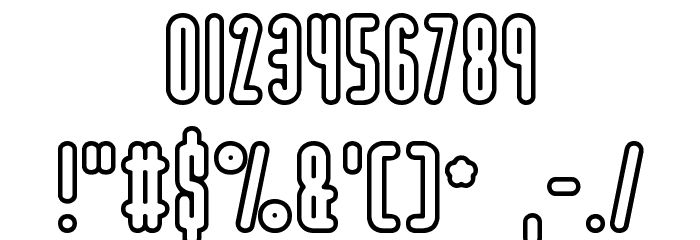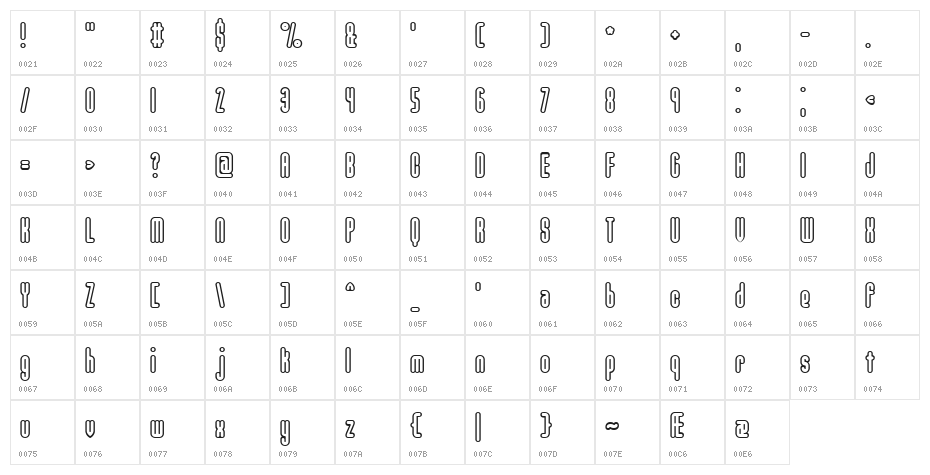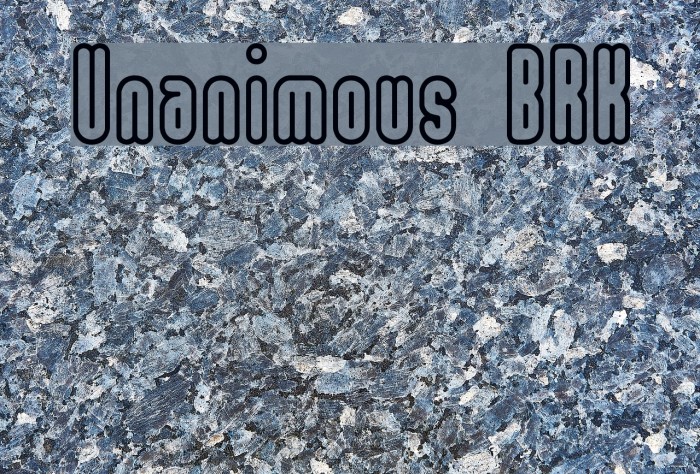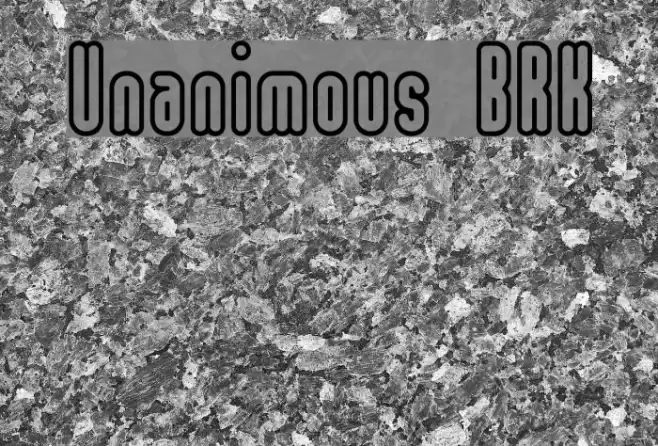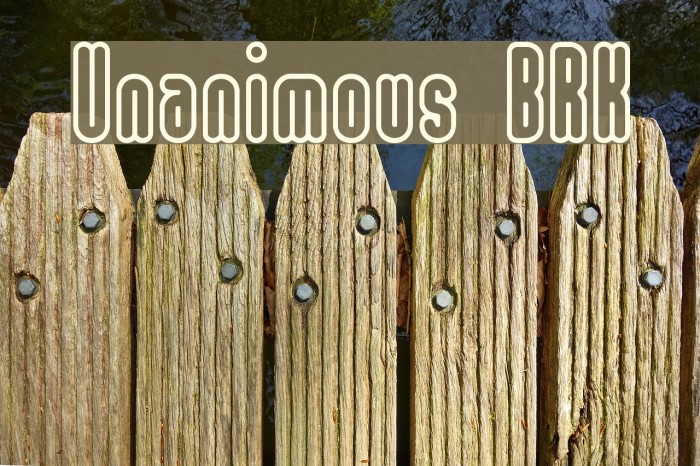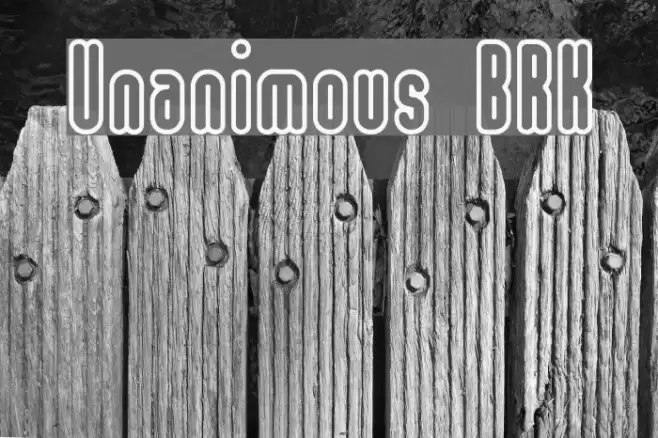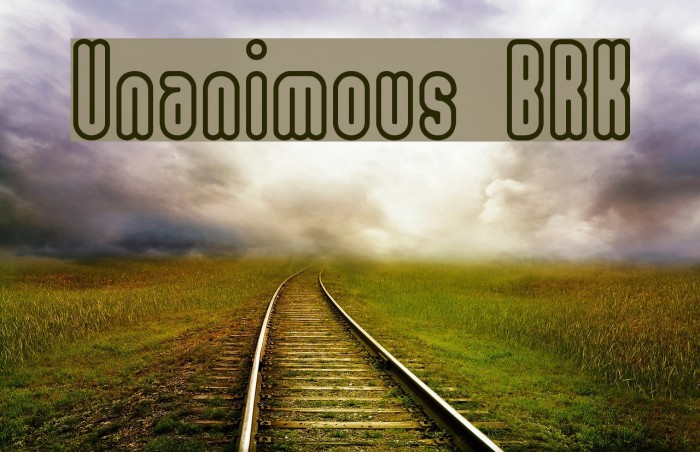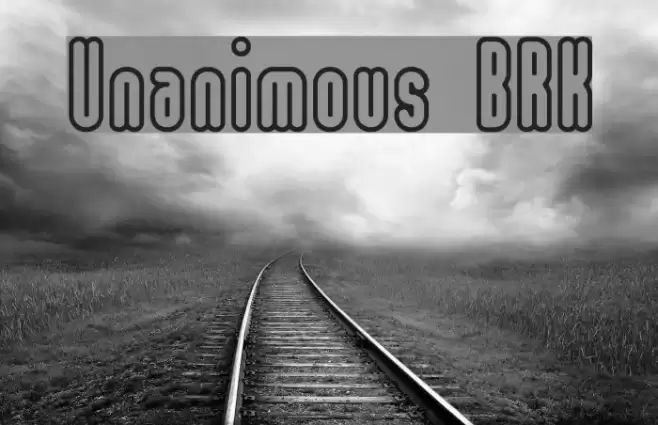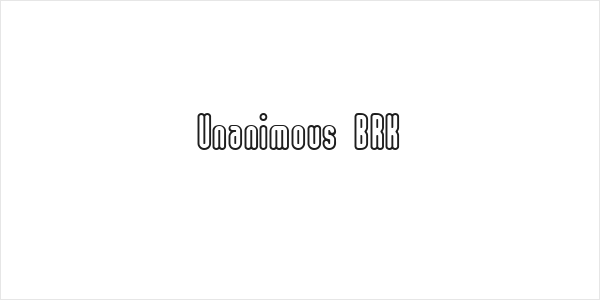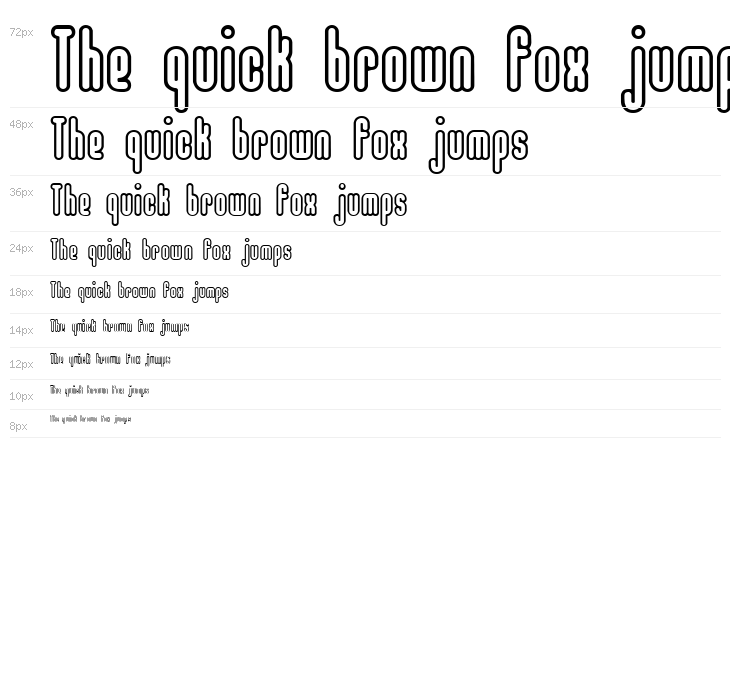
Unanimous BRK Font
Unanimous BRK Description
This font features a bold, outlined style with a playful and modern aesthetic. Each character is constructed with a consistent stroke width, creating a uniform appearance across both uppercase and lowercase letters. The rounded edges and smooth curves give it a friendly and approachable look. The numbers and special characters maintain the same outlined design, ensuring a cohesive visual experience. This font's unique style makes it stand out, making it ideal for attention-grabbing designs.
| Proposed Projects | Ideal for posters, logos, headlines, and any design that requires a bold and eye-catching typeface. |